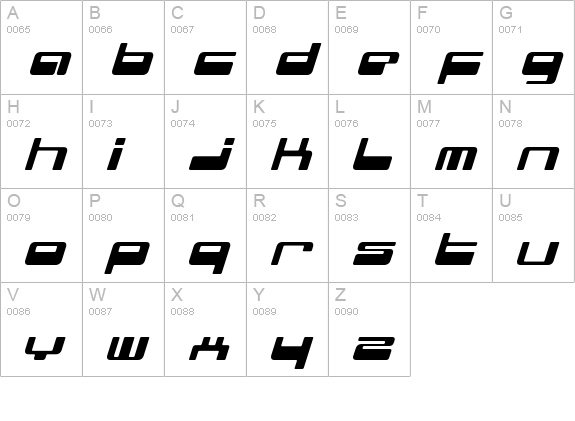
Genotype font is a stunning typeface that exudes modernity and sophistication. With its sleek and elegant design, Genotype is perfect for a wide range of design projects, from branding to editorial design. This versatile font features clean lines and a contemporary feel that will elevate any project. What sets Genotype font apart is its unique blend of classic typography with a fresh and innovative twist. Its geometric shapes and sharp edges give it a futuristic look that is sure to catch the eye. Whether you're designing a logo, poster, or website, Genotype font will bring a touch of style and professionalism to your work. Best of all, Genotype font is available for free download at FontsMarket.com. So you can add this exceptional font to your collection without breaking the bank. Don't miss out on the opportunity to elevate your designs with Genotype font today!